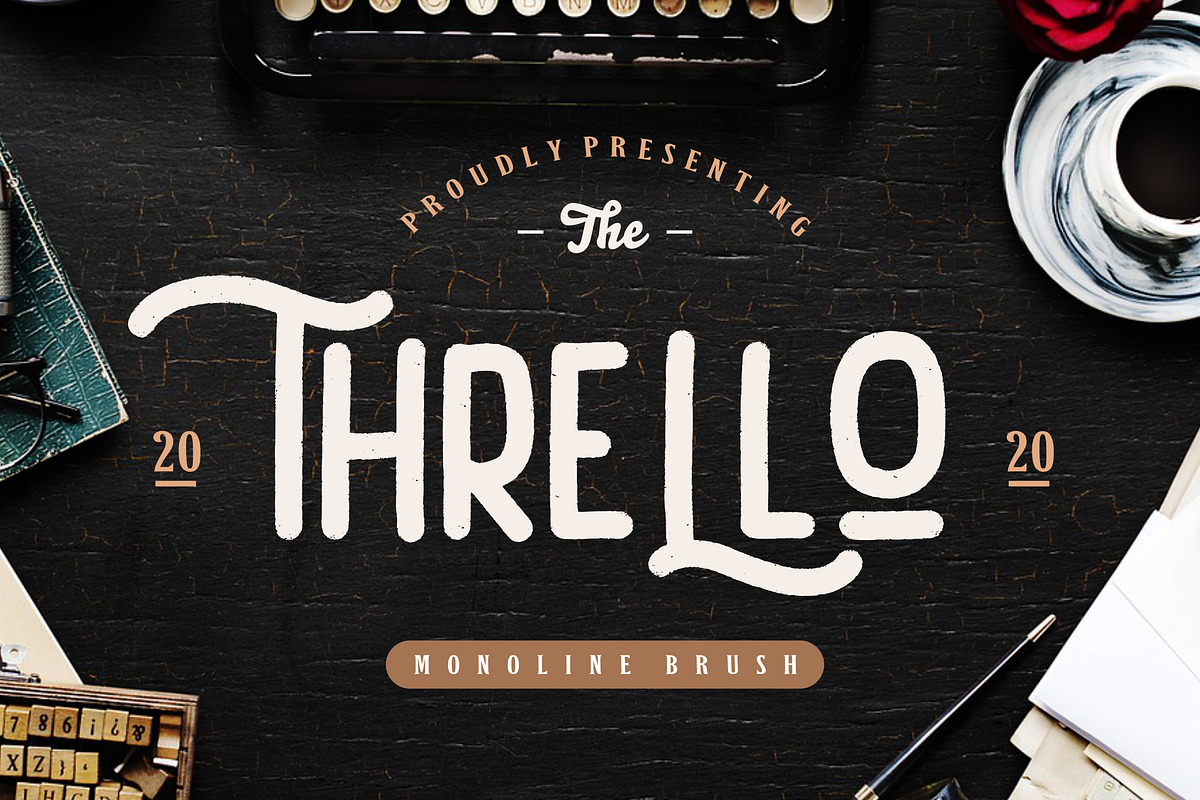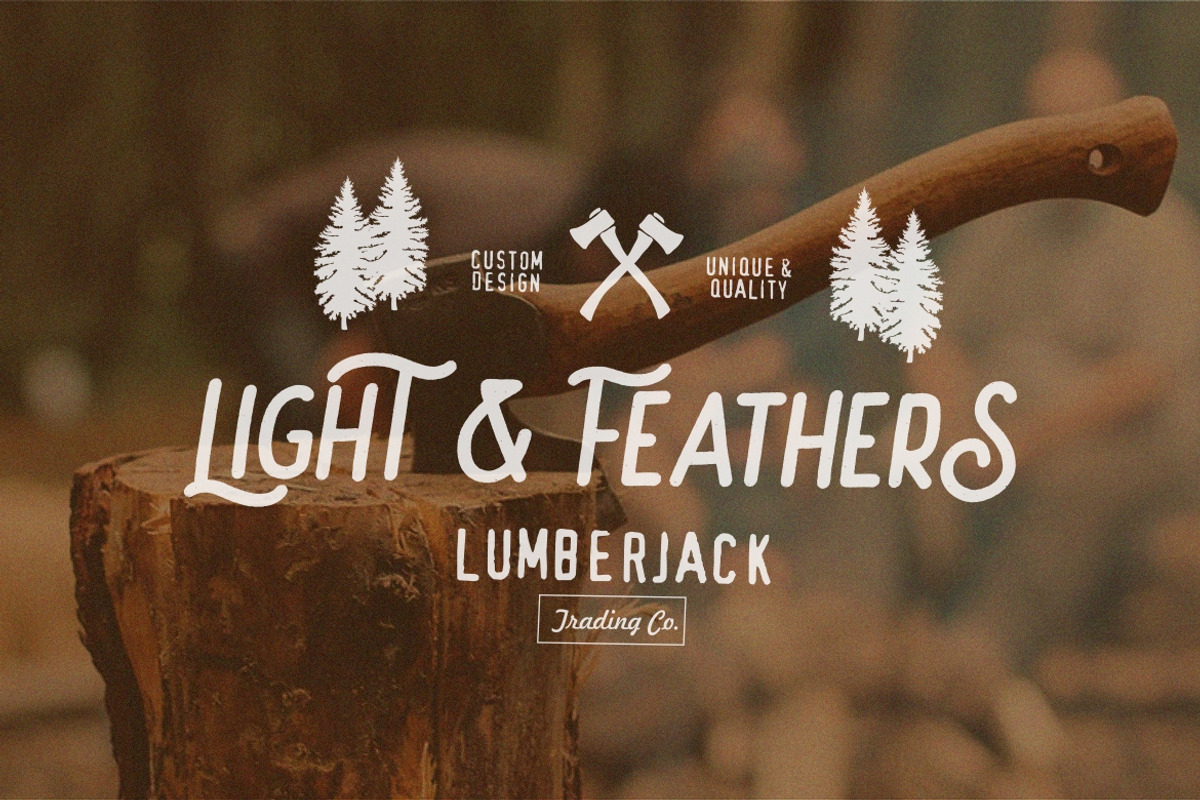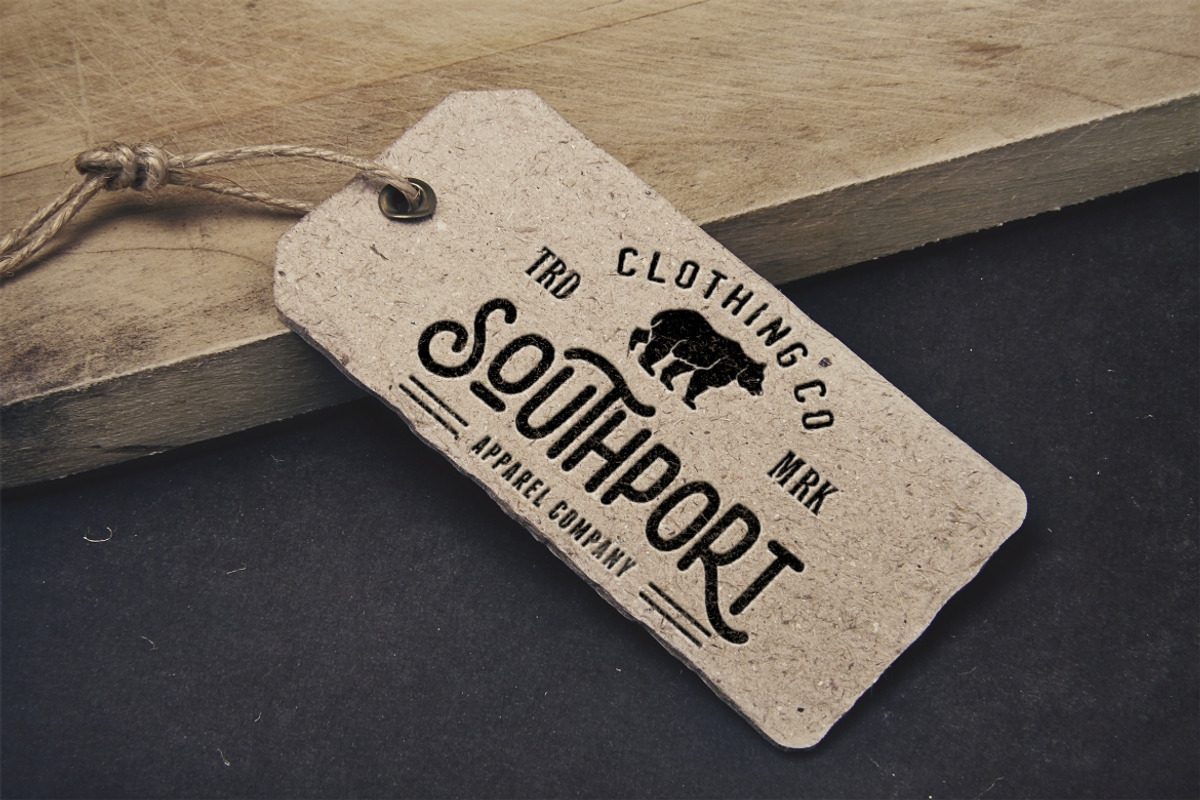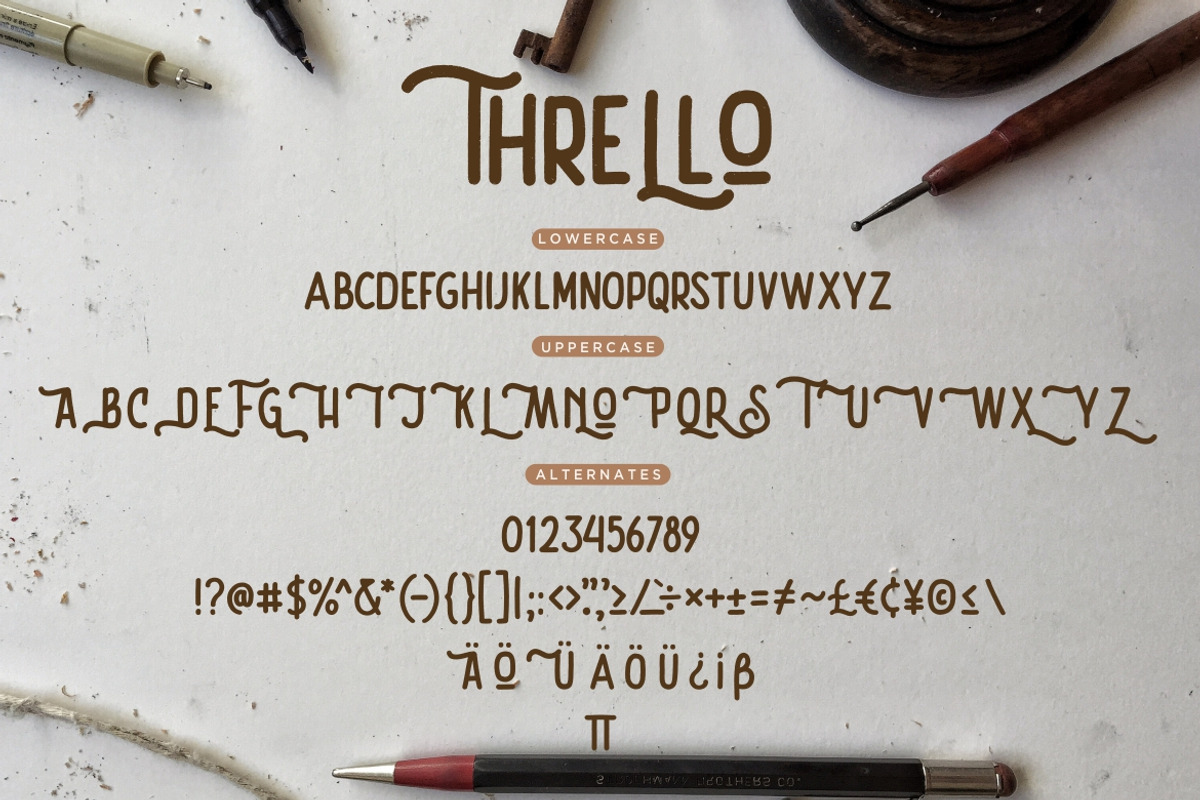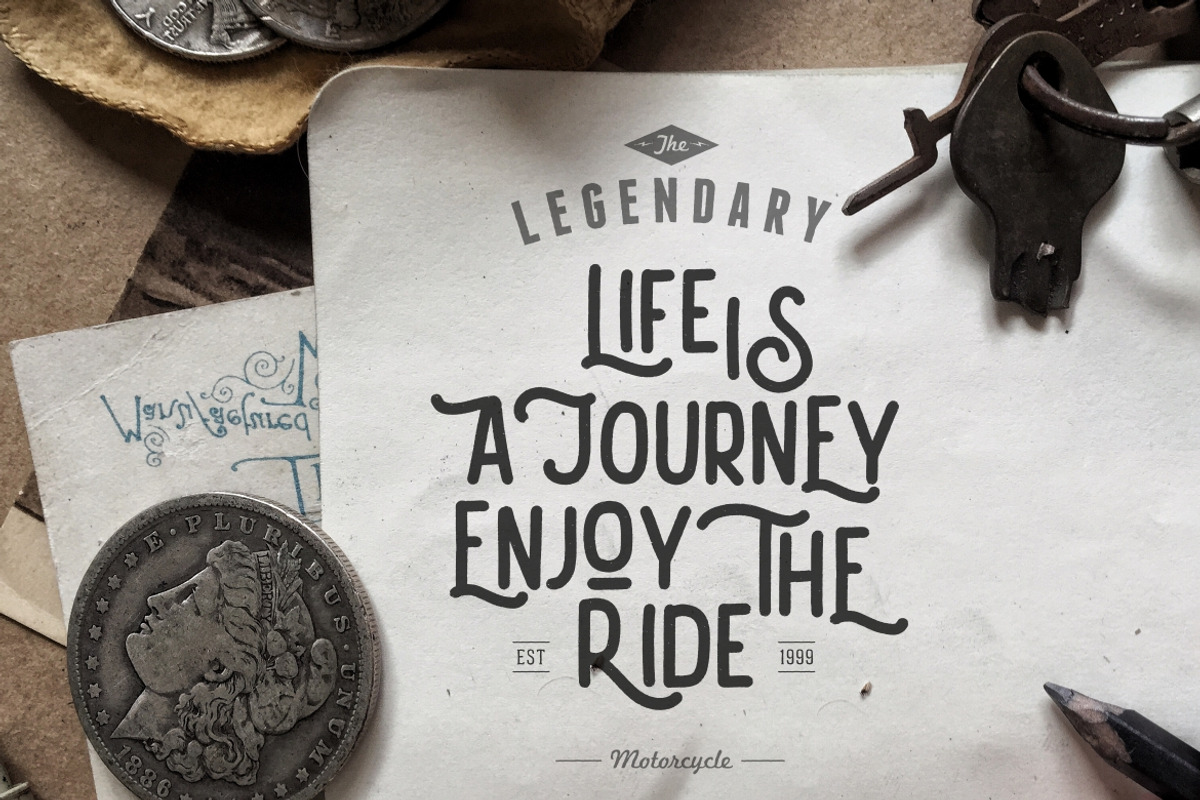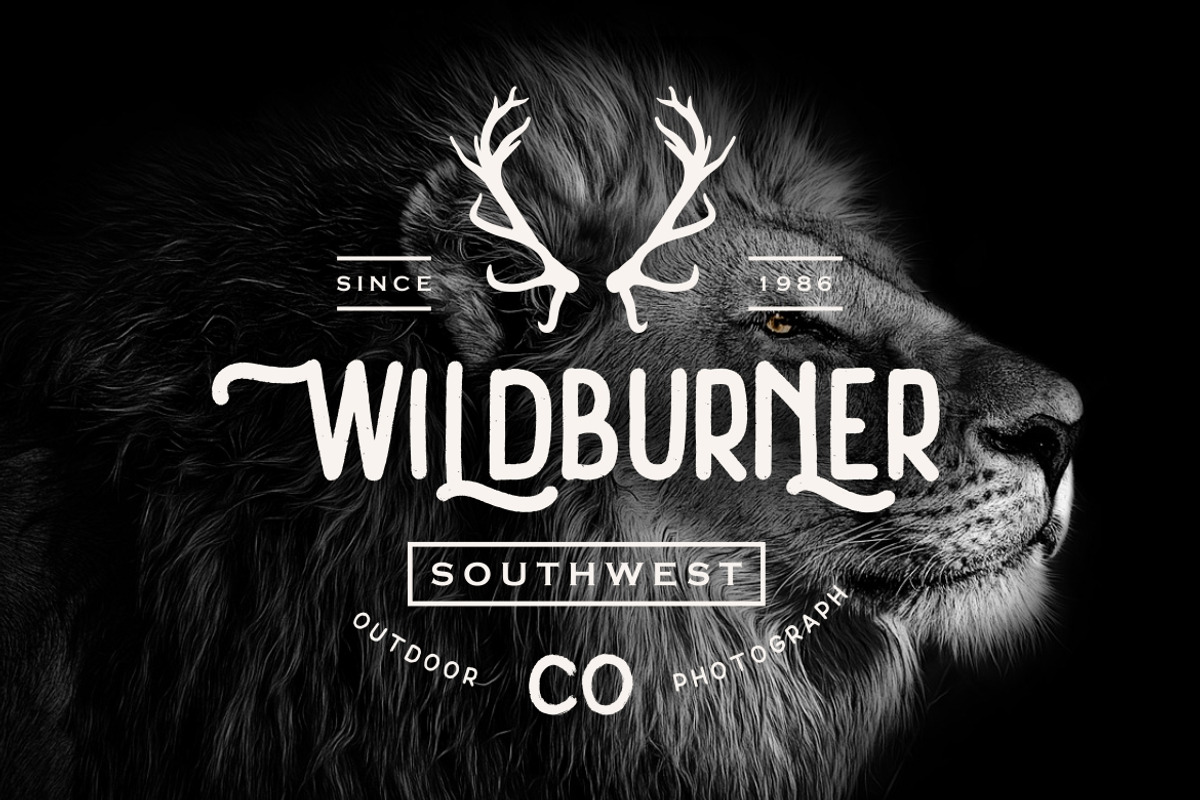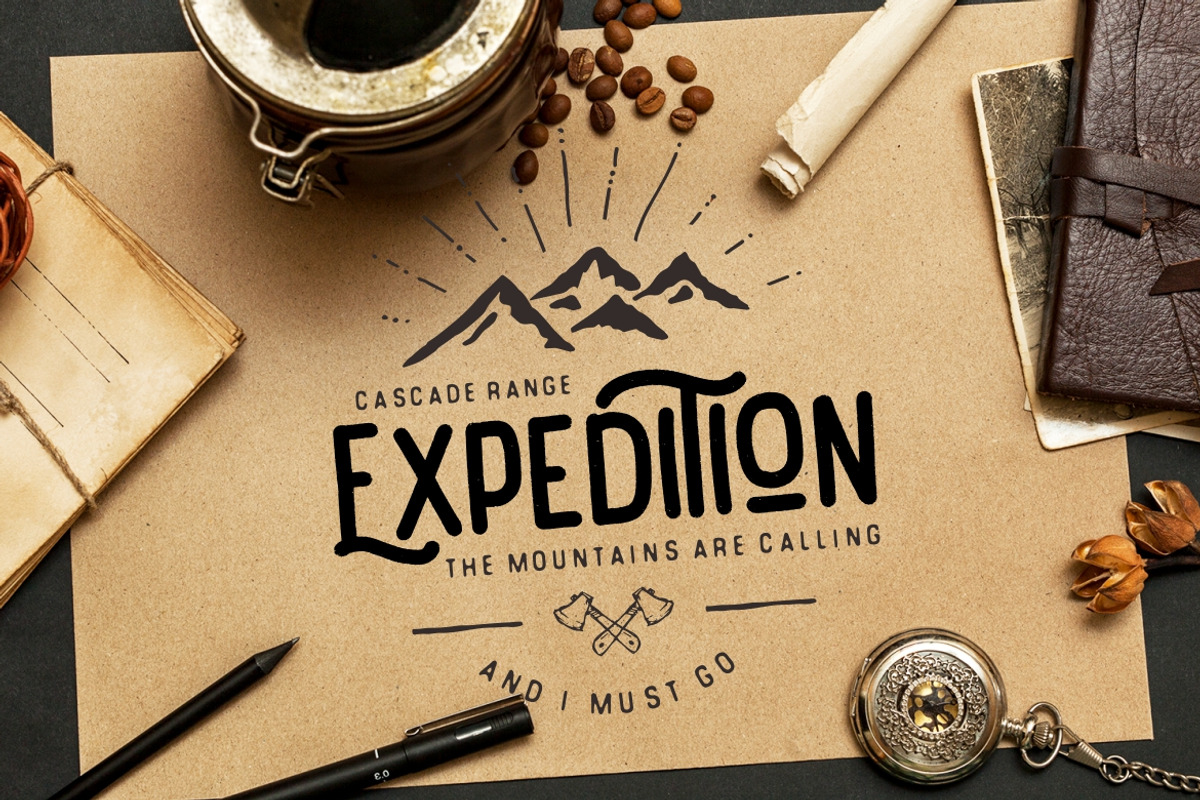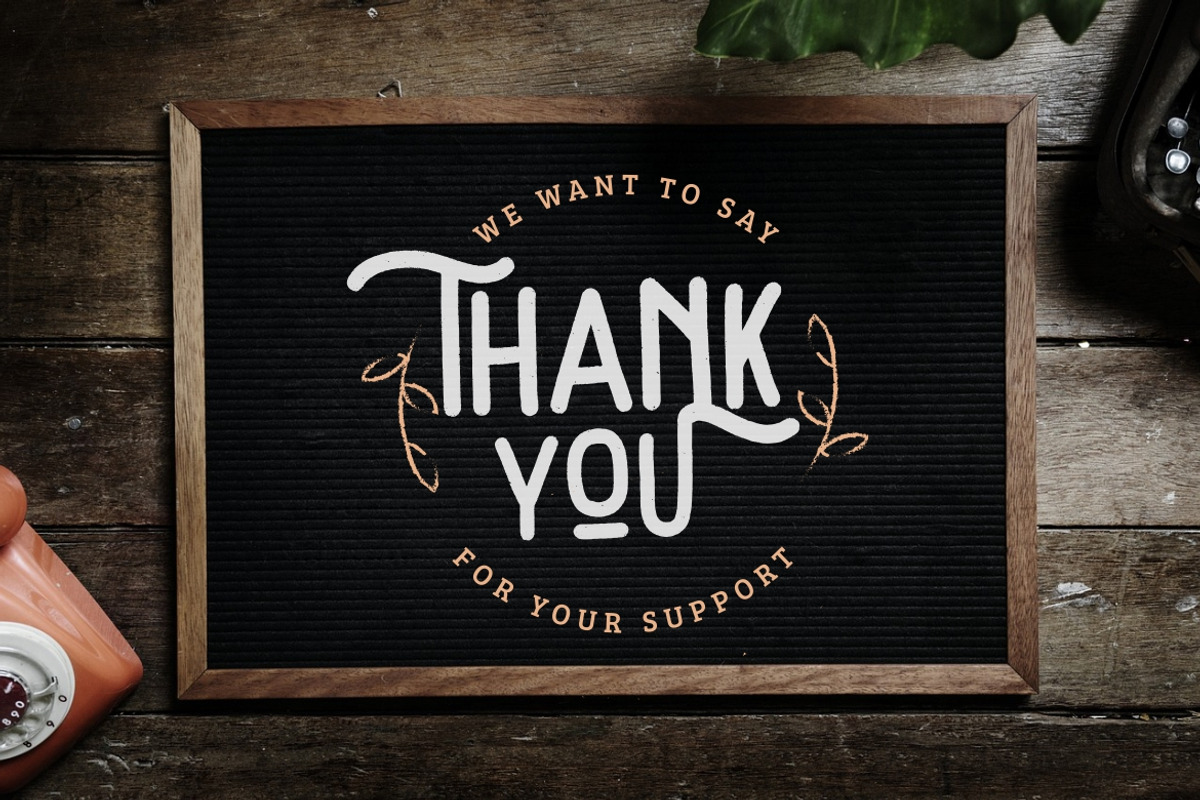
Thrello Monoline Brush Business Font
Thrello is monoline sans serif font with brush effect and vintage & retro style will makes your project looks awesome.
Thrello is perfect for branding projects, logo, wedding designs, social media posts, advertisements, product packaging, product designs, label, photography, watermark, invitation, stationery and any projects that need handwriting taste.
- Fonts include multilingual support for; ä ö ü Ä Ö Ü ß ¿ ¡
Thrello Monoline Brush Business Font by Creatype Studio fits naturally into Branding, posters, packaging, typography.